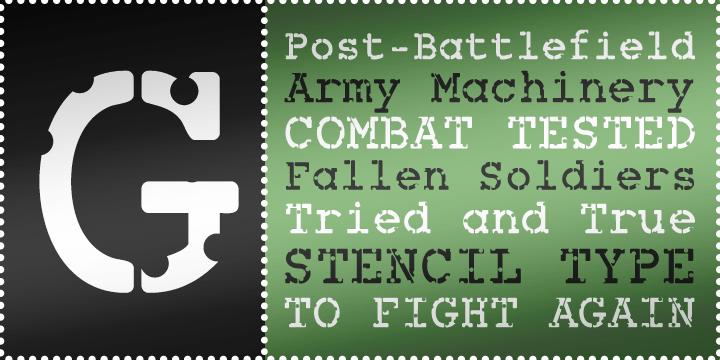
Combat Tested BTN
Combat Ready BTN is a monospaced stencil type family with a clean, disciplined, regulation-inspired look. Bordering on a courier-like fixed-width structure, it combines military utility with crisp precision, making it well suited for designs that need a controlled industrial voice. Combat Ready BTN works especially well for military-themed graphics, tactical packaging, labels, signage, dossiers, gaming visuals, and poster work that calls for a functional, no-nonsense tone. With Regular and Oblique styles, the family offers a straightforward typographic system built around order, clarity, and strength.
Combat Tested BTN Regular
Combat Tested BTN Oblique